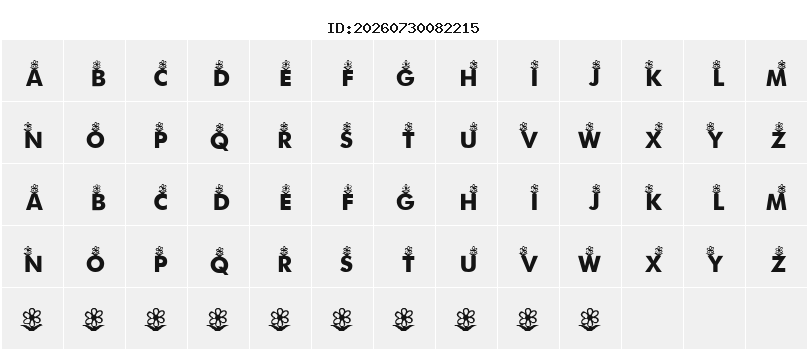
• Font Name: KR First Bloom
• Full Font Name: KR First Bloom
• Character Count: 63
About KR First Bloom.ttf
KR First Bloom.ttf is a modern, elegant sans-serif font designed for ultimate readability and visual harmony. Perfect for branding, headlines, web design, and print materials.